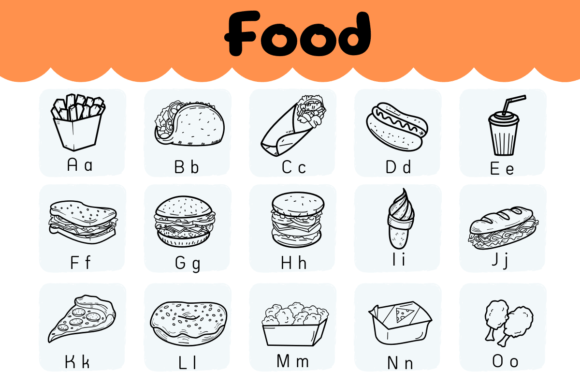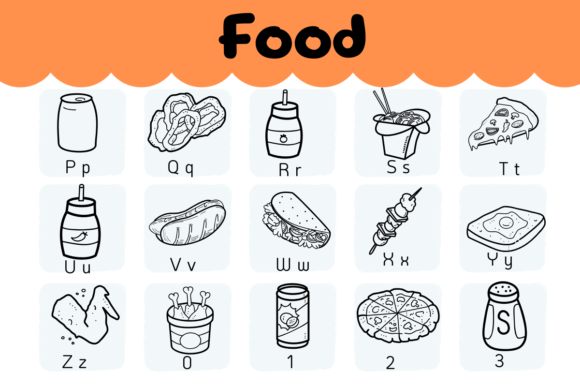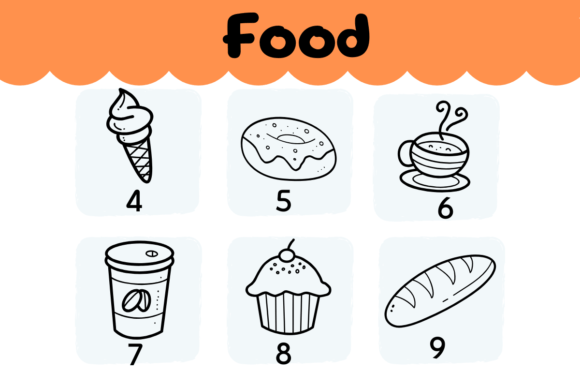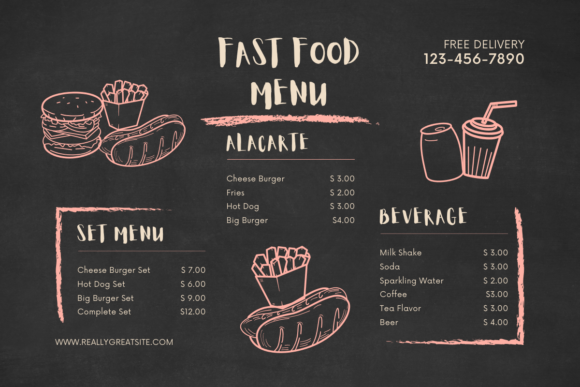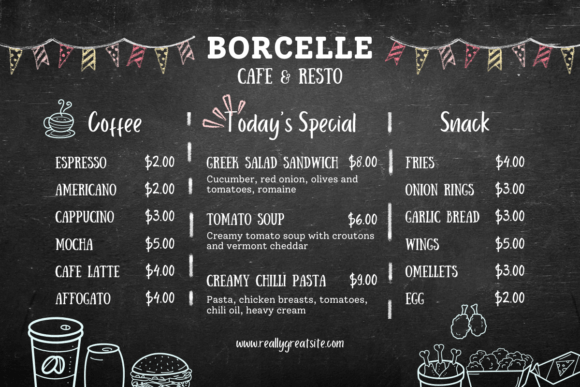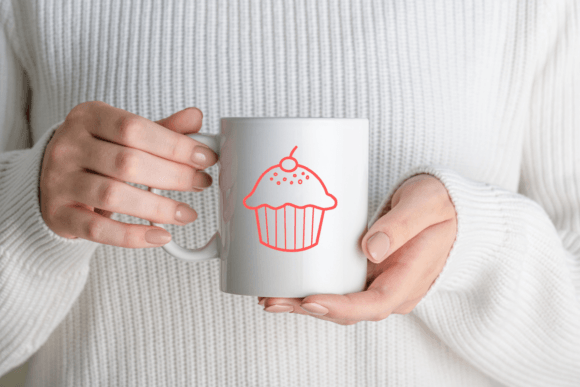
The Recipe for Creative Success: Introducing Food Font
Have you ever been brainstorming a creative project, pouring over fonts and designs, trying to find the perfect combination to bring your vision to life? I know I have. The moment of clarity, when everything falls into place and you know you’ve found the missing piece, is exhilarating. And that’s exactly what happened when I stumbled upon the delightful Food Font.
This charming dingbat font is a treat for the eyes, with its whimsical illustrations of food and drink. Its purpose is to add a dash of fun and personality to your creative projects, whether it’s a wedding invitation, a DIY craft, or a logo. And for designers, Food Font is a valuable asset, offering endless possibilities for creative expression.
Key Features of Food Font
- Font Family: Food Font is a unique, hand-drawn font that resembles food items, making it perfect for culinary-related designs.
- Unique Characteristics: Each character in Food Font is carefully designed to resemble a specific food item, adding a touch of whimsy and playfulness to any design.
- Character Set: The font includes a comprehensive character set, including uppercase and lowercase letters, numbers, punctuation marks, and special characters.
Designer Review: Food Font
Overall, I’d say that Food Font is a solid choice for any project that requires a casual, playful tone. It’s definitely ✨ eye-catching and attention-grabbing, with a unique blend of rounded shapes and bold lines.
The font is highly versatile and can be used in a variety of contexts, from restaurant menus to food blogs and social media. It’s also easy to read, even at smaller sizes, which is a definite plus.
- ✨ Unique and playful design that’s sure to grab attention
- Easily readable at various sizes
- Highly versatile and suitable for a range of contexts
Limitsations:
- ⚠️ May not be suitable for formal or professional projects
- ⚠️ Can be a bit too bold for certain applications, such as body text
- ⚠️ Limited language support, which may limit its use in international projects
Overall, I think Food Font is a great choice for projects that need a fun and playful vibe. Just be mindful of its limitations, and you’ll be good to go!
Tips for Getting the Most Out of Food Font
Use Food Font for creative food-related projects, such as recipe books, food blogs, and restaurant menus.
Experiment with different font sizes, colors, and combinations to create visually appealing designs.
Use Food Font in conjunction with high-quality images to create engaging and mouth-watering content.
Food Font is commonly used for:
Recipe books and cookbooks
Food blogs and websites
Restaurant menus and signage
Food-related social media graphics